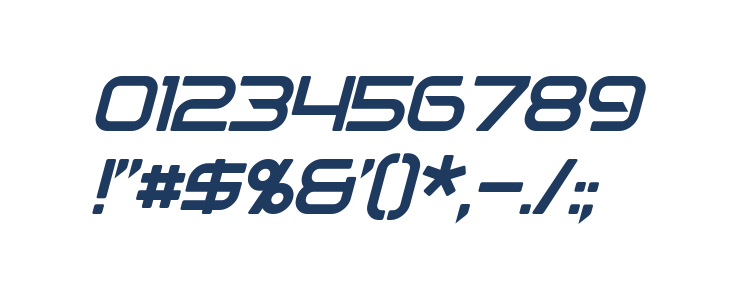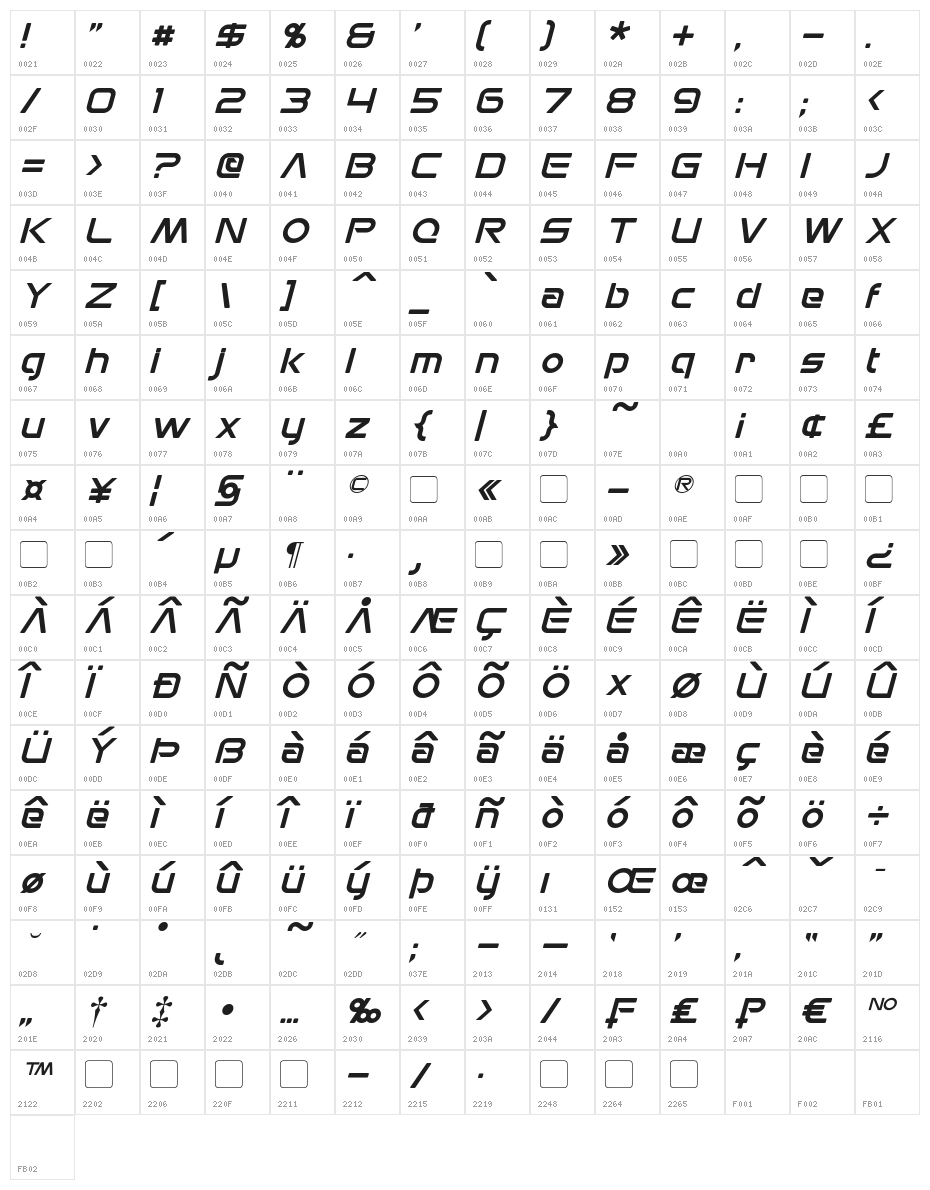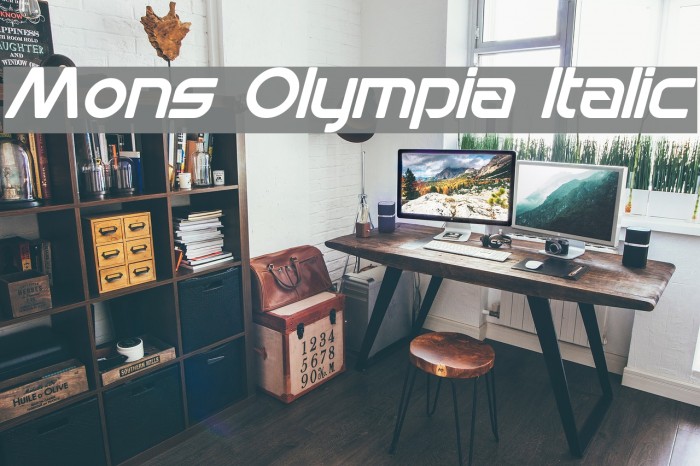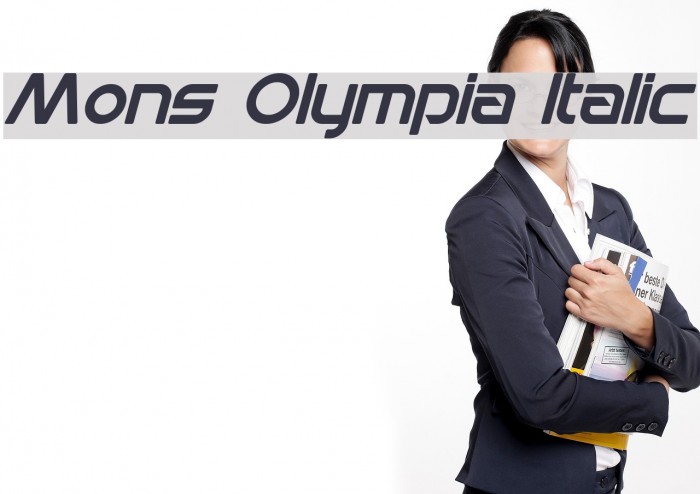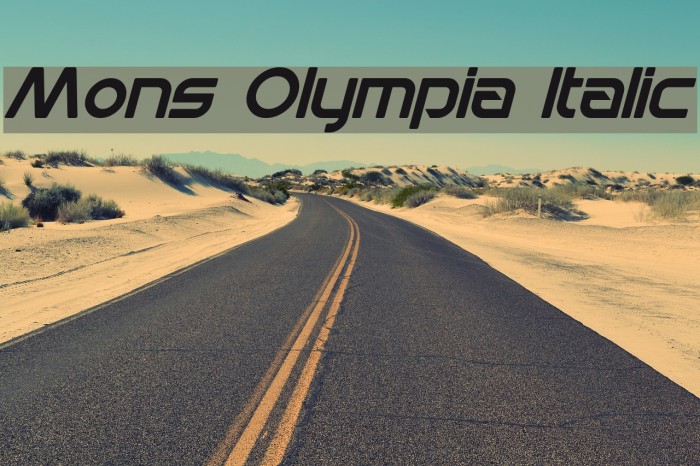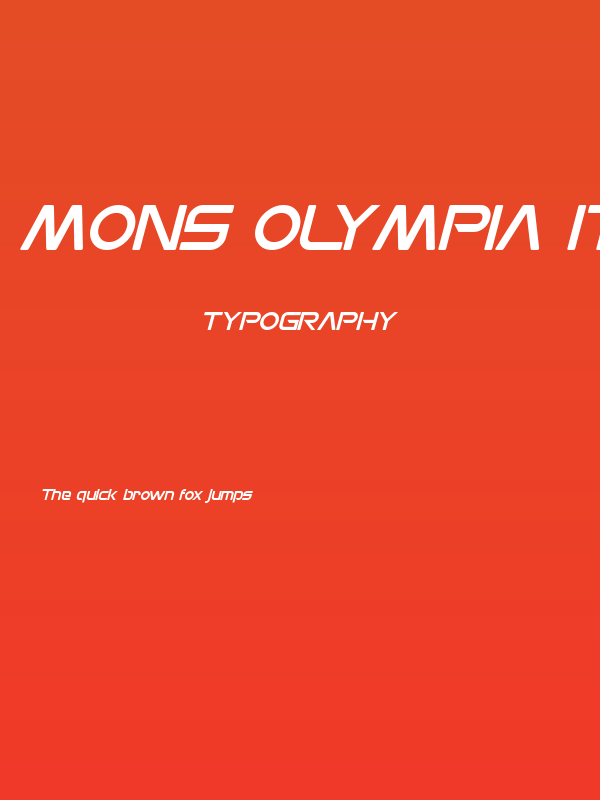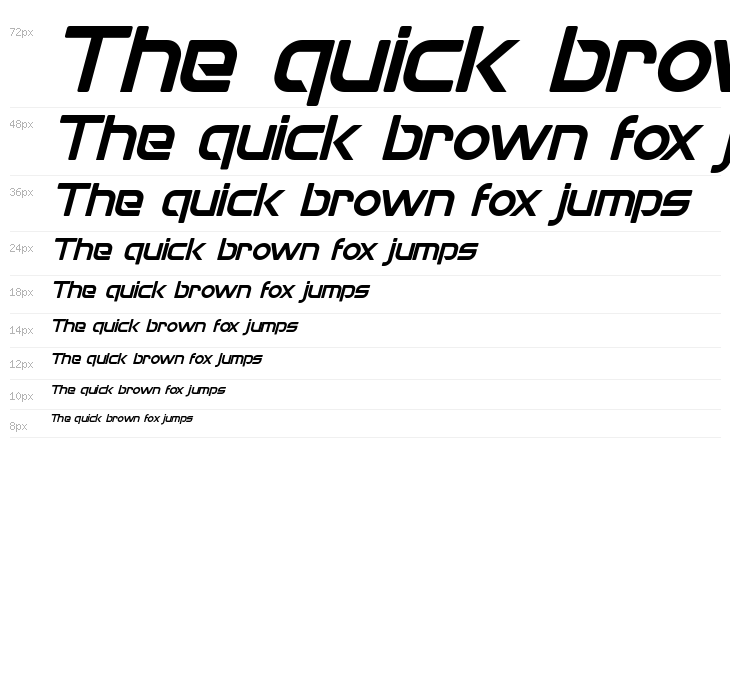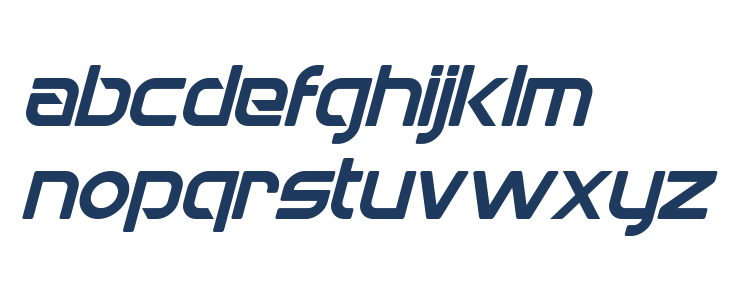
Mons Olympia Italic Font
Mons Olympia Italic Description
This font features a sleek, modern design with an italicized style that gives it a dynamic and forward-moving appearance. The characters are slightly condensed, enhancing their streamlined look. The strokes are consistent in weight, providing a uniform and cohesive feel across all characters. The font's geometric shapes and clean lines make it suitable for contemporary design projects. Its distinct slant and sharp angles add a sense of speed and agility, making it ideal for technology or sports-related branding. The numerals and special characters maintain the same stylistic approach, ensuring a harmonious overall appearance.
| Proposed Projects | Ideal for technology branding, sports logos, modern advertising, and dynamic web design. |